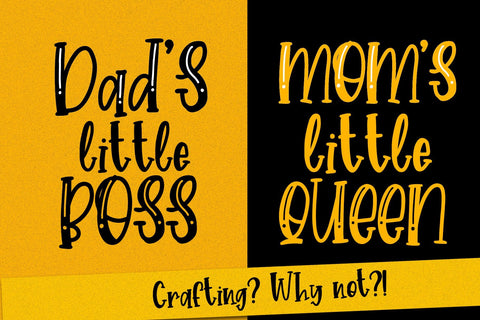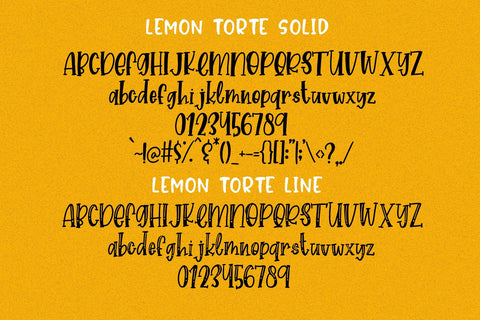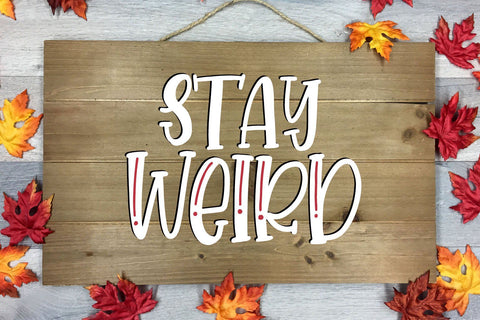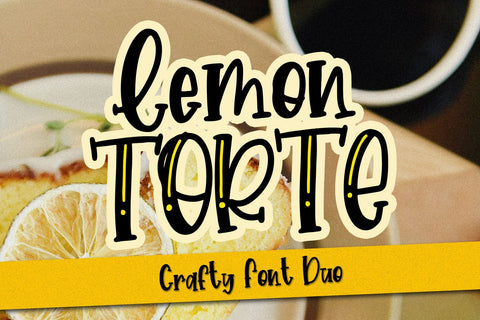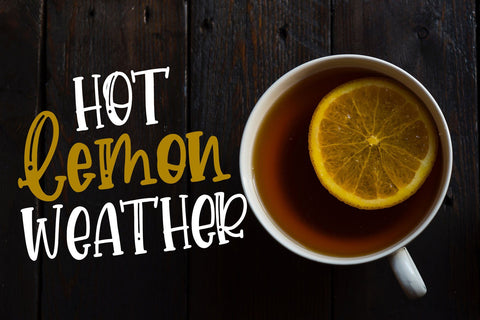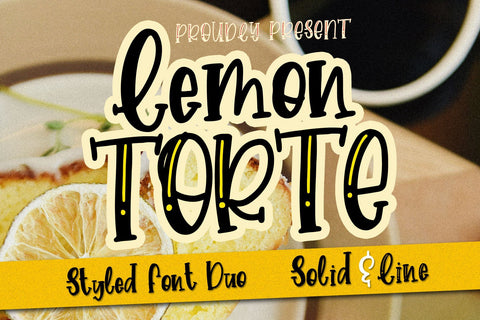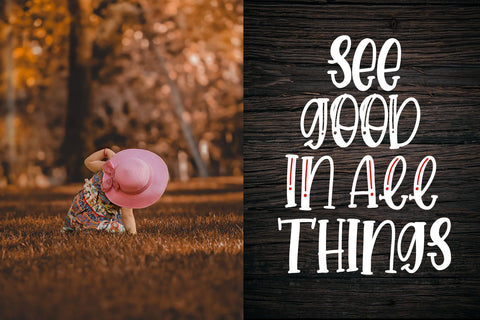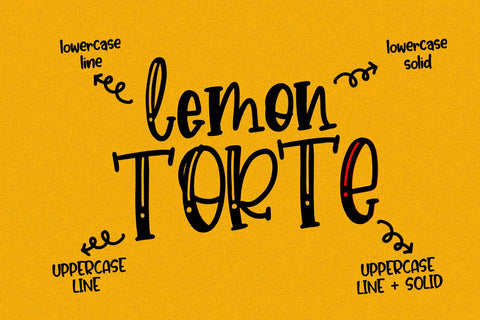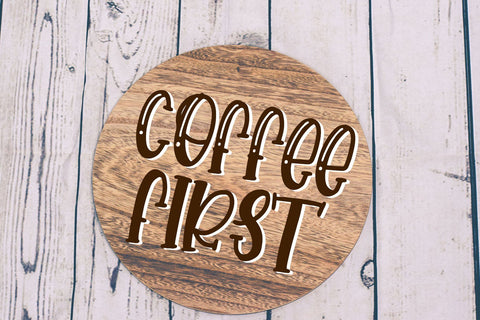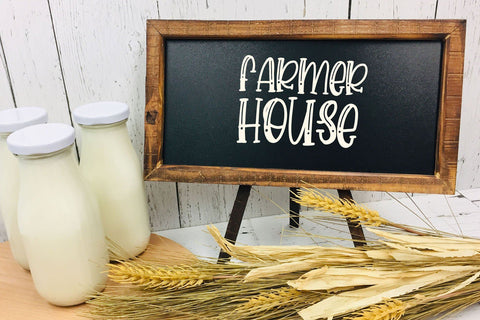
Lemon Torte - Crafty Font
Introducing : Lemon Torte Font Duo!
This is a handlettered font with 2 styles : Solid & Line . It's a stylish, modern, cute, and quirky font. Just mix and match the both style, or even layering them to make it a different style! Great for your crafting, card, banner, party, quotes, and much more!
- Comes in 2 styles : Solid & Line